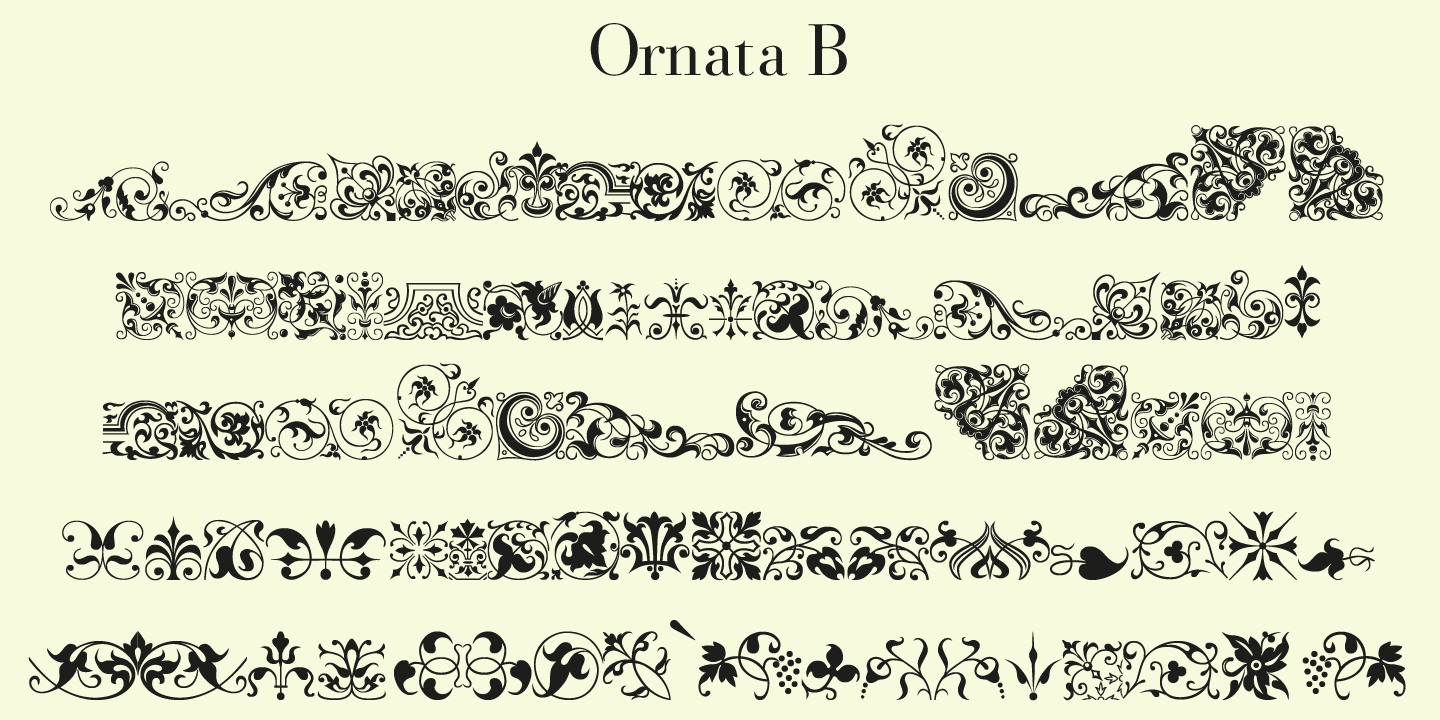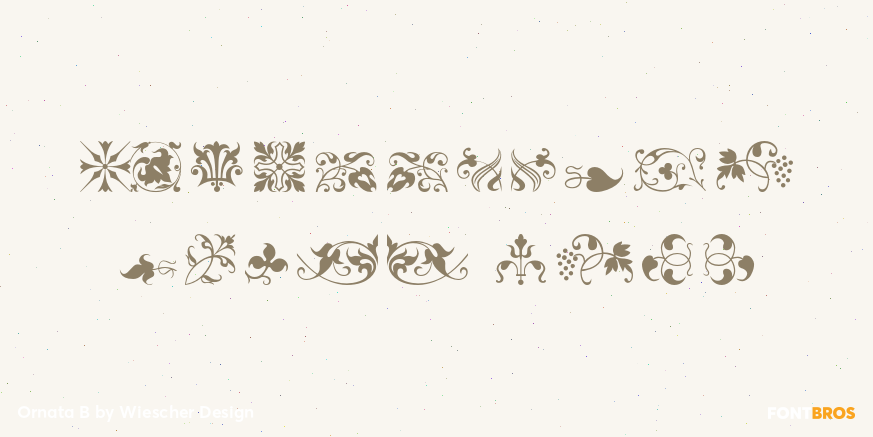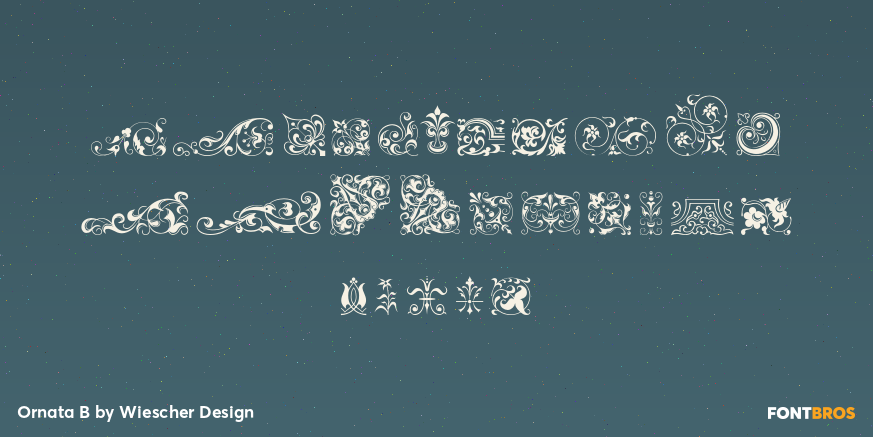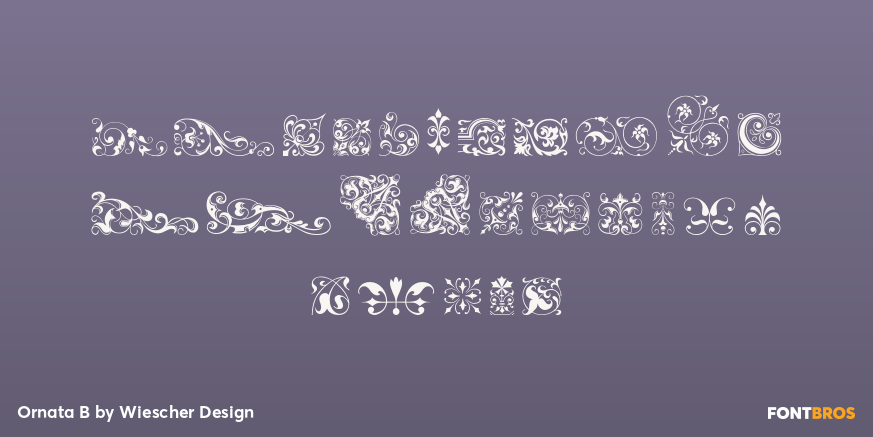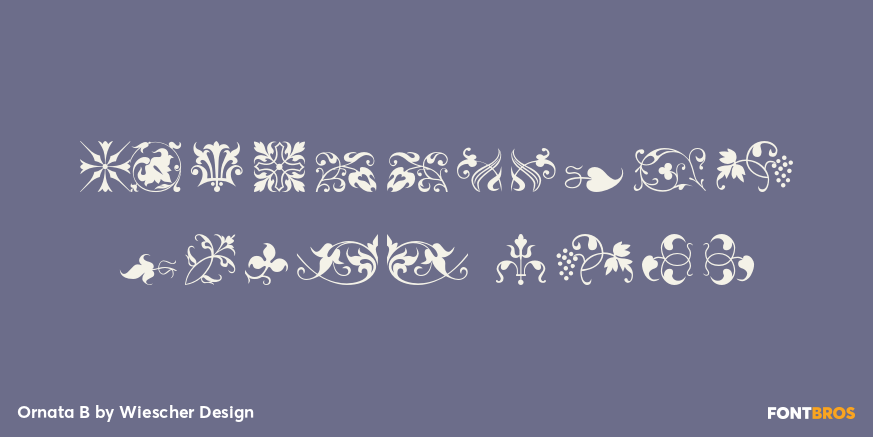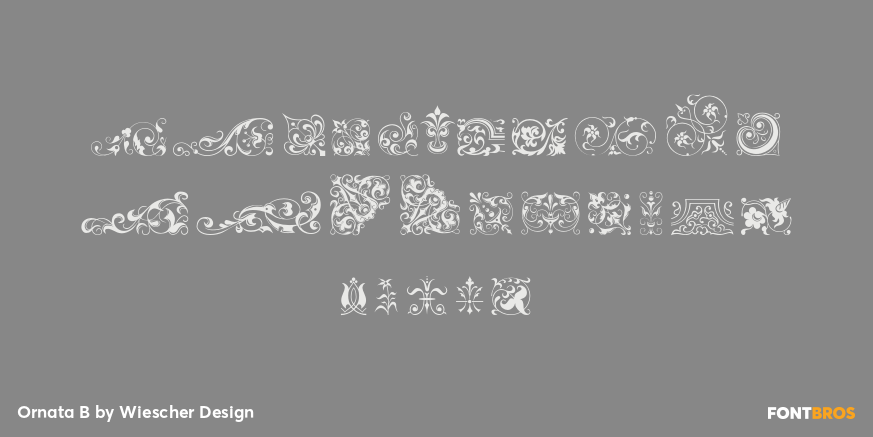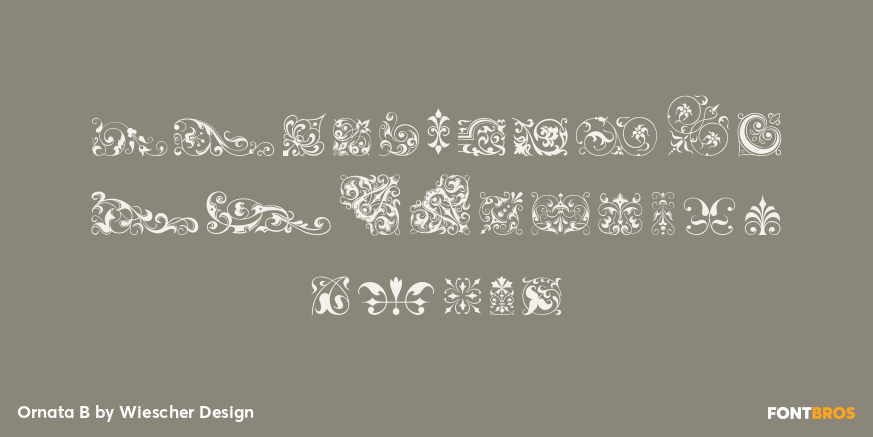
Ornata B
Font Family by Wiescher Design
Ornata B is the second of a series of old ornaments that I am trying to save from oblivion.
I am not just scanning these, I am completely redesigning the ornaments from scratch, thereby eliminating imperfections.
These ornaments have been first designed by the Elzevier printer family from the Netherlands. The designs date back til the 17th century and I think they just had to be saved.